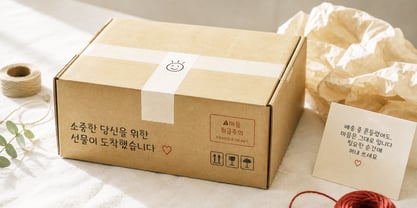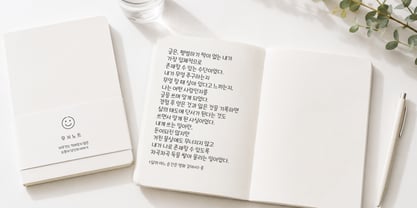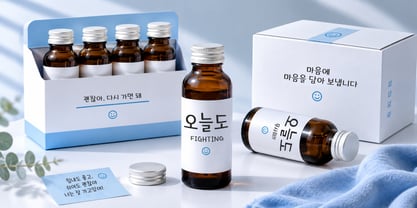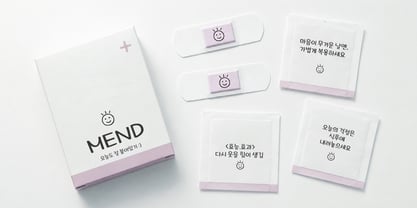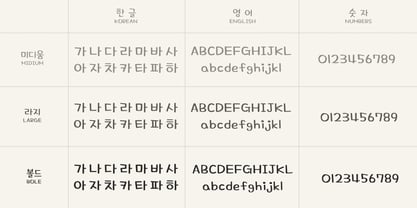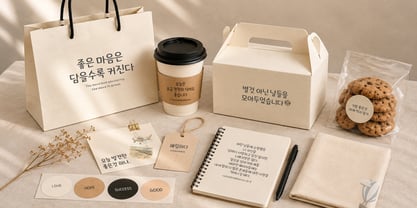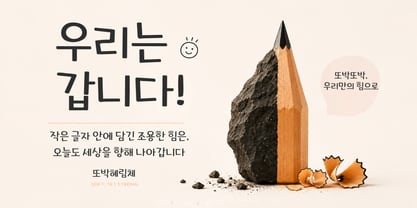
Ddobakhyerim
por hyerimhada
A família de fontes Ddobakhyerim foi desenhada por Hyerim Kim e publicada pela hyerimhada. Ddobakhyerim contém 3 estilos. Saiba mais sobre esta família
Ddobak Hyerim is a Korean handwritten typeface inspired by neat and carefully written handwriting. The name “Ddobak” comes from a Korean expression meaning to write letters clearly, neatly, and with care.
The typeface combines the natural warmth of handwriting with a clean and structured appearance. Its letterforms have a steady and balanced rhythm while preserving the natural characteristics of handwriting, giving the typeface a friendly, personal, and distinctive impression.
Ddobak Hyerim was created with the belief that even small letters can carry strength and meaning. Each character comes together to form words and sentences, delivering messages with warmth and a clear visual presence.
Its approachable handwritten style makes it suitable for a wide range of creative applications, including branding, packaging, posters, social media content, editorial design, titles, short messages, and other designs that call for a warm and personal touch.
The Ddobak Hyerim family includes three styles: Light, Medium, and Bold. Each style provides a different level of visual emphasis while maintaining the consistent character and personality of the typeface family.
With its neat structure, natural handwritten character, and warm personality, Ddobak Hyerim offers a distinctive Korean handwriting style for contemporary visual communication.
Designers: Hyerim Kim